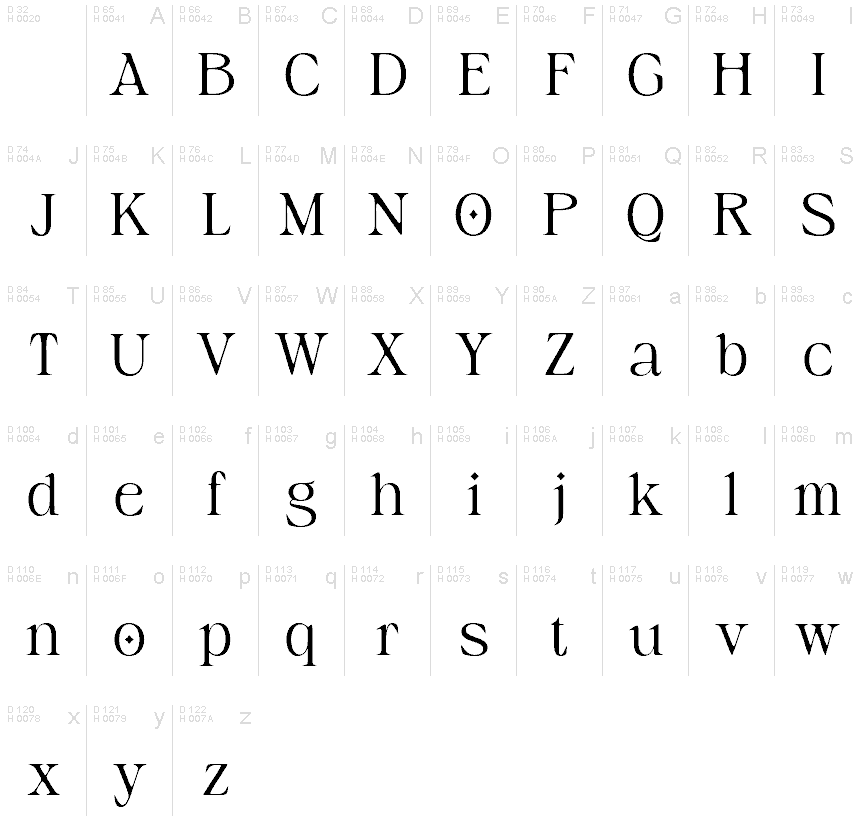
CSFloraDrawn-Regular Demo
CS Flora Drawn font is an elegant and sophisticated serif font from Craft Supply Co. Its classic aesthetic is highlighted by refined ornamental elements, giving it a timeless look. The overall design is luxurious and exceptionally detailed with an exquisite touch of creativity. Use this free font in your designs to experiment with typography styles and expand your limits.